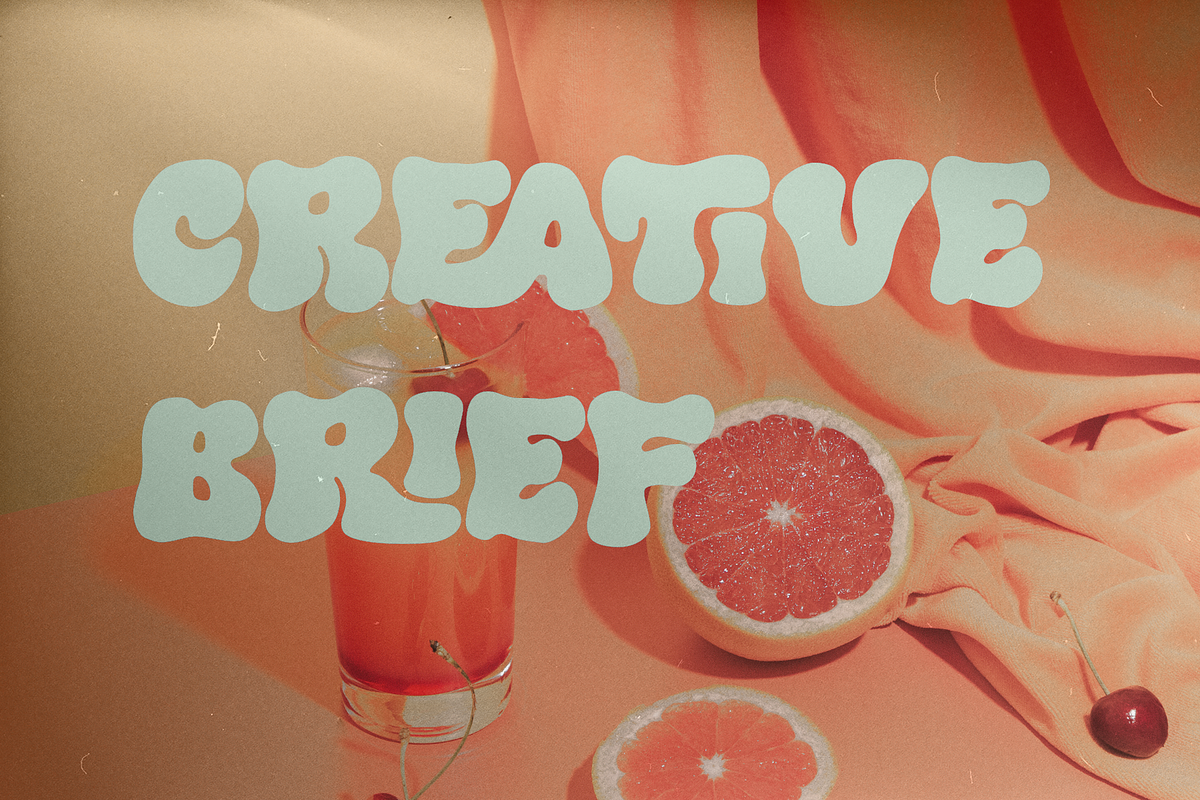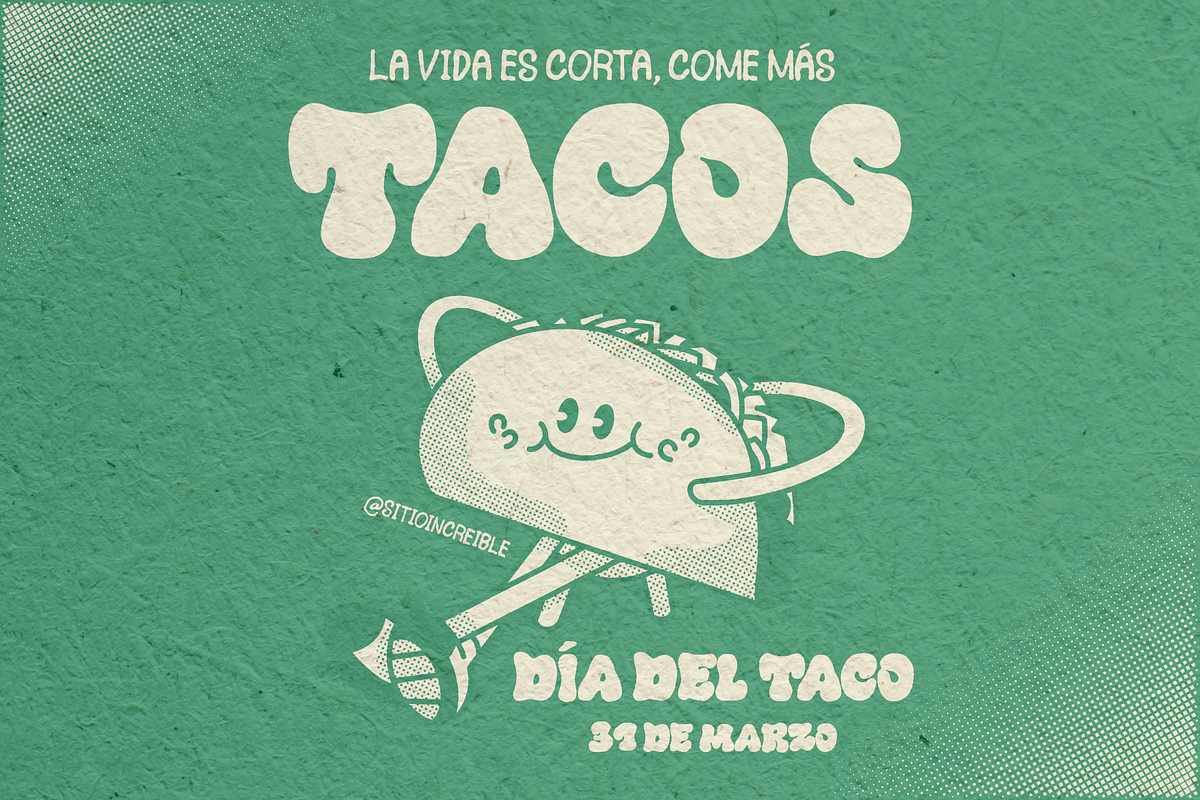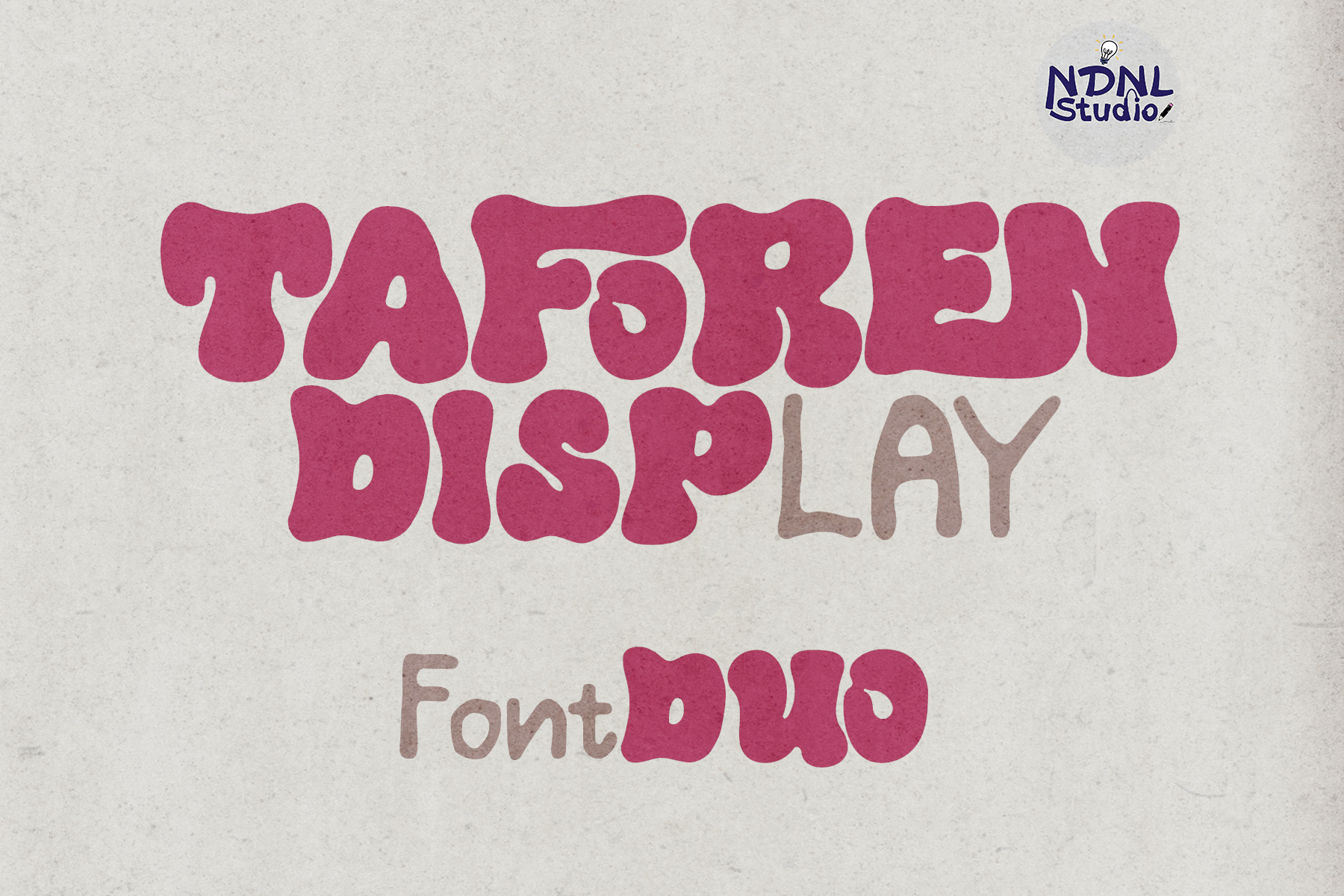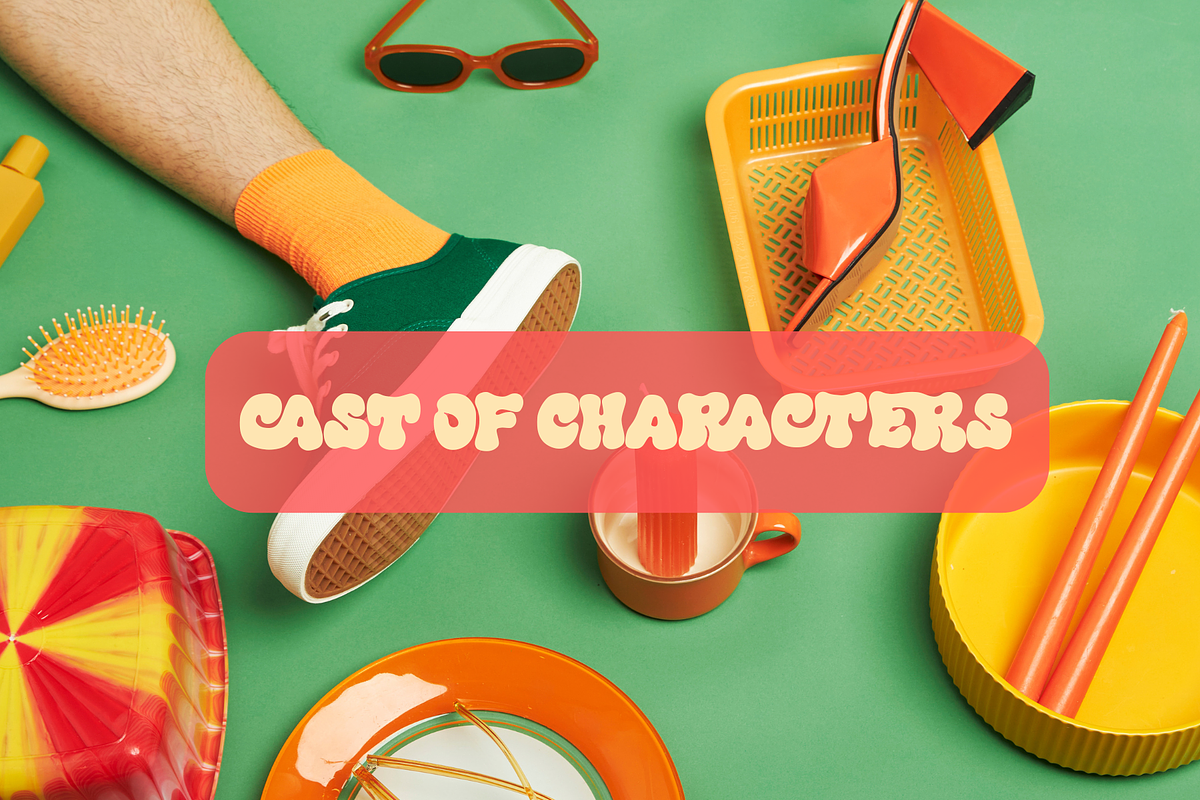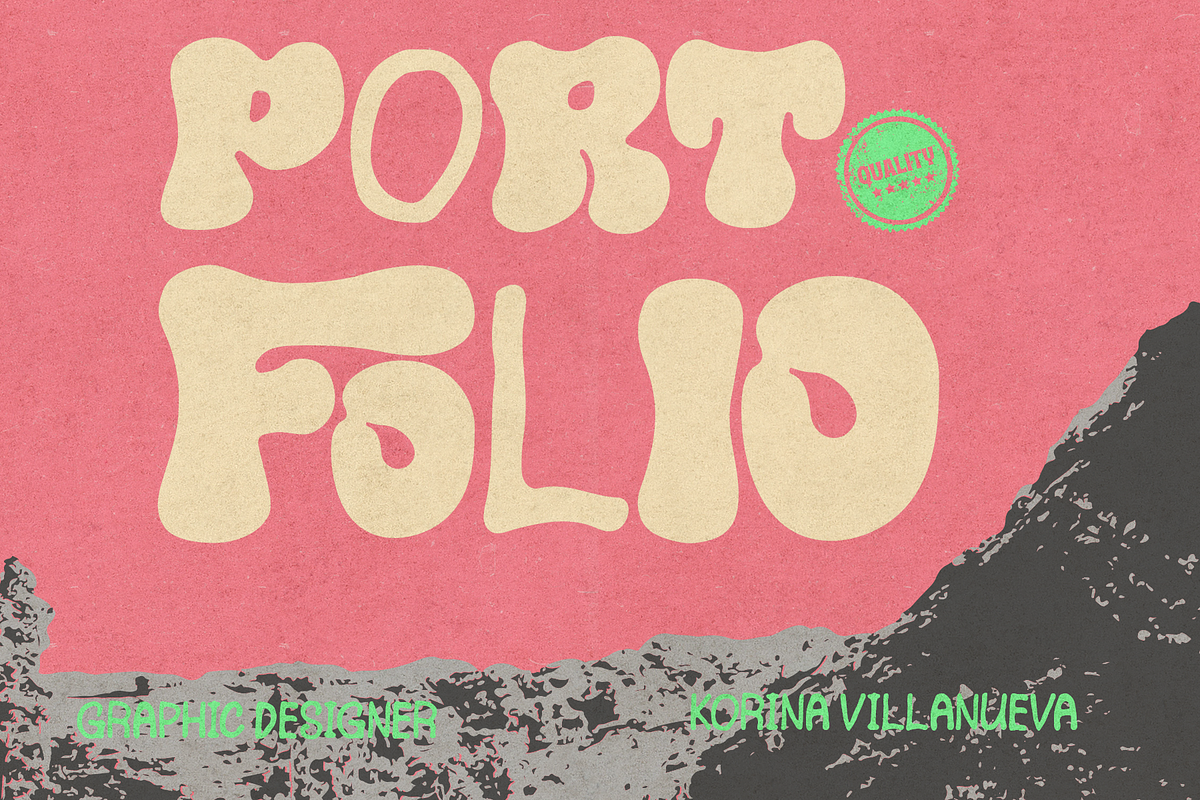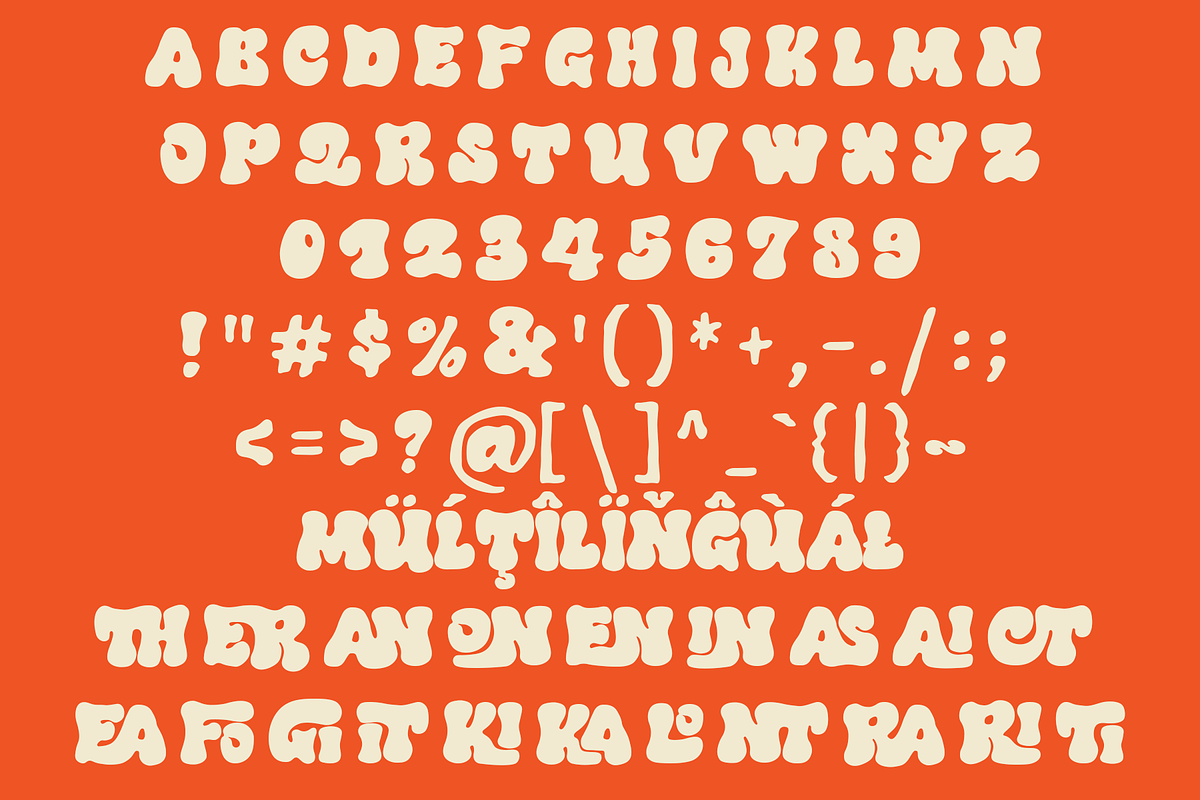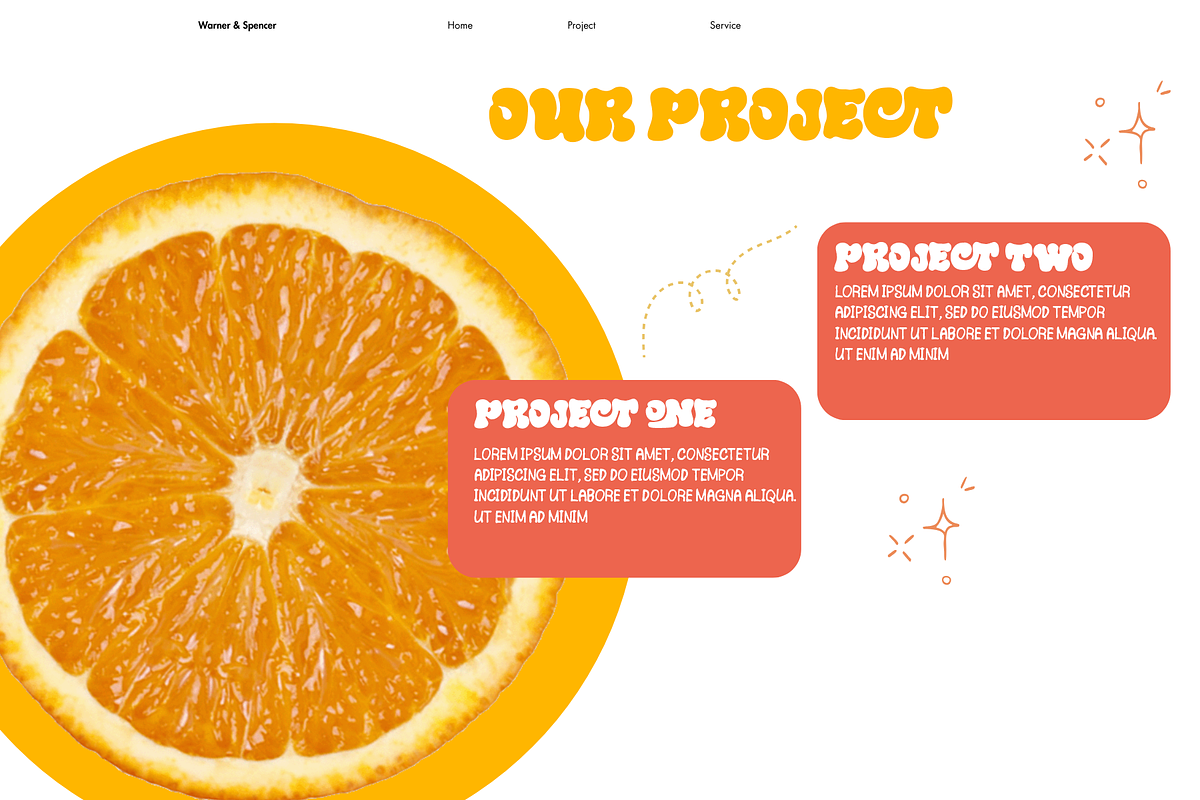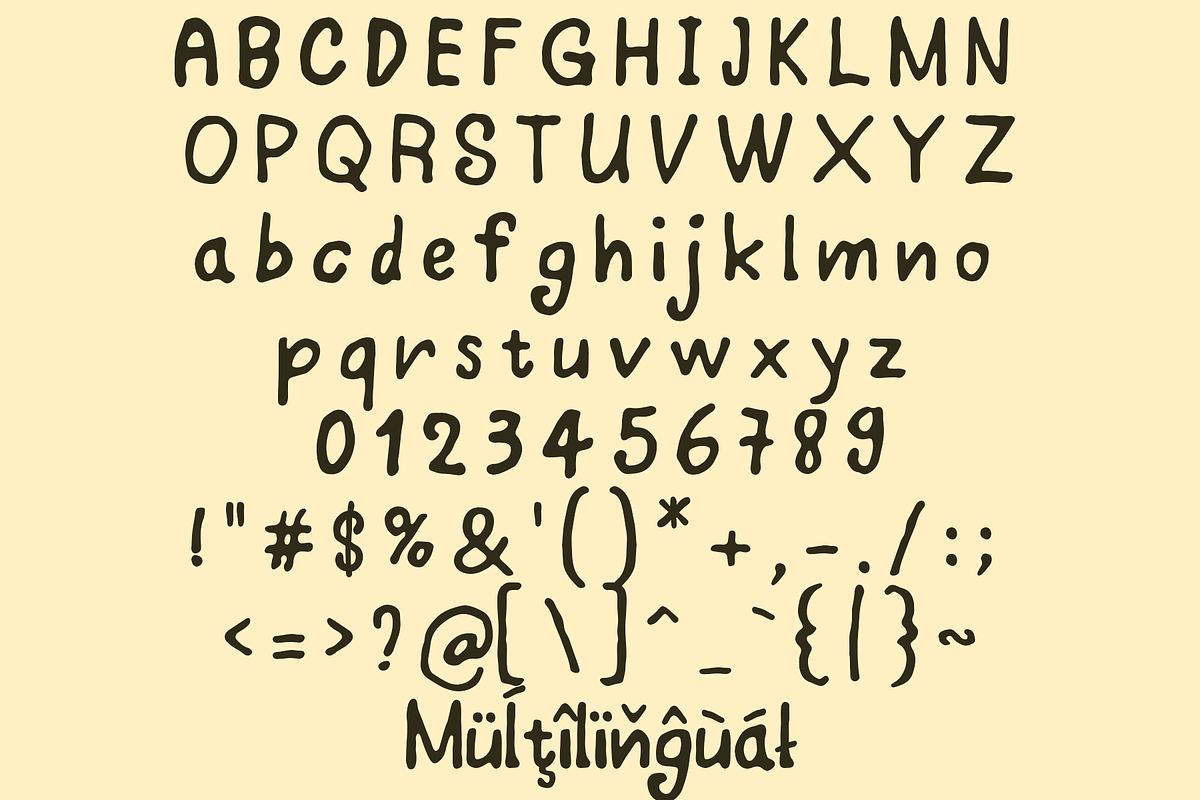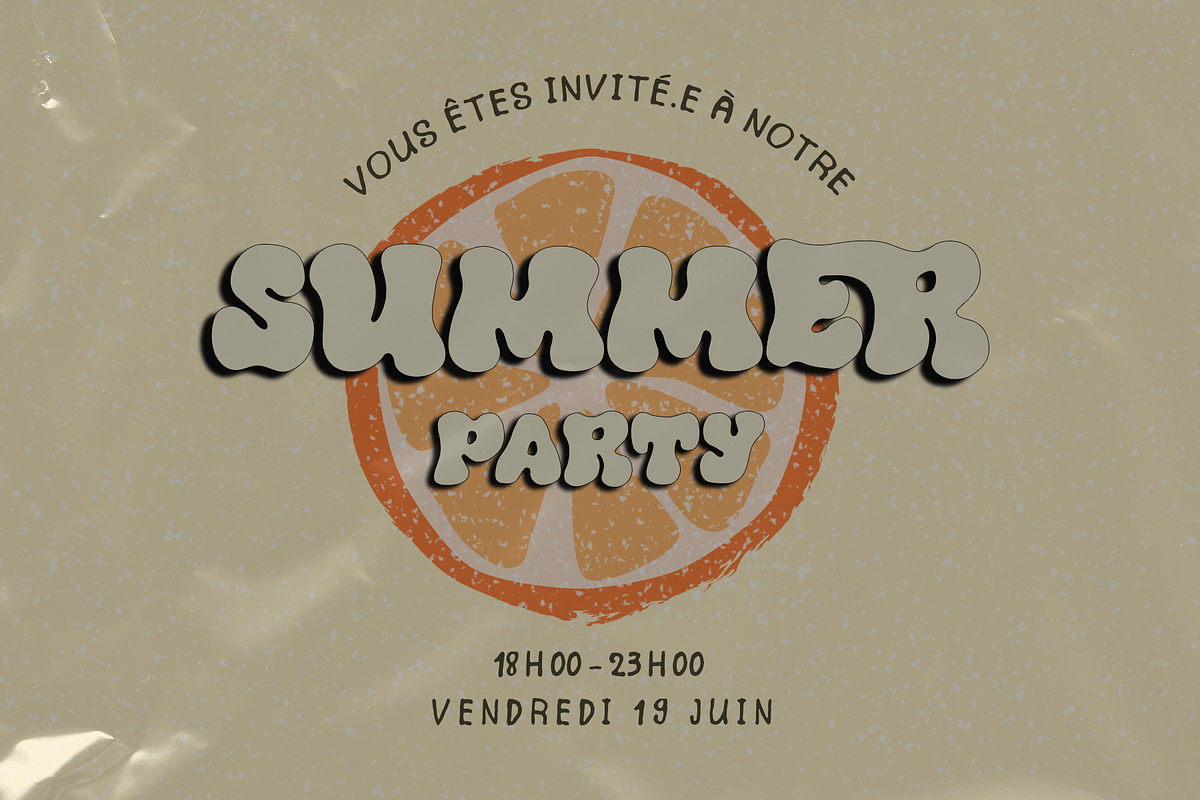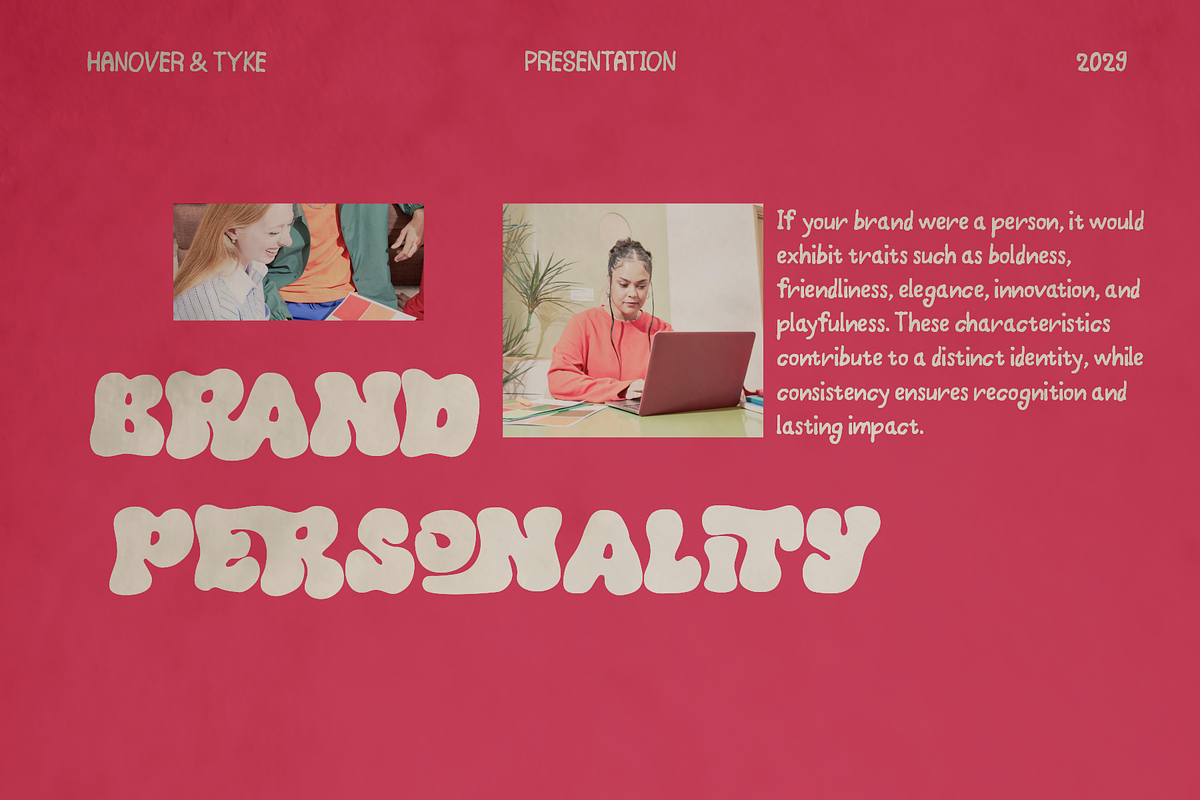
Taforen – Retro Font Duo
Taforen is a playful retro-inspired display font duo featuring soft curves, rounded forms, and a distinctive personality. Influenced by the artistic spirit of the 1960s and 1970s, it combines nostalgic charm with a fresh, contemporary appeal.
Its bold, expressive letterforms make it an excellent choice for logos, product packaging, posters, headlines, fashion branding, handmade products, social media graphics, and other creative projects that need to stand out. The organic shapes and unique character details bring a fun, friendly, and memorable visual presence to any design.
– Character set A-Z
– Uppercase & Lowercase
– Numerals & Punctuation
– Accented Characters (West Europe)